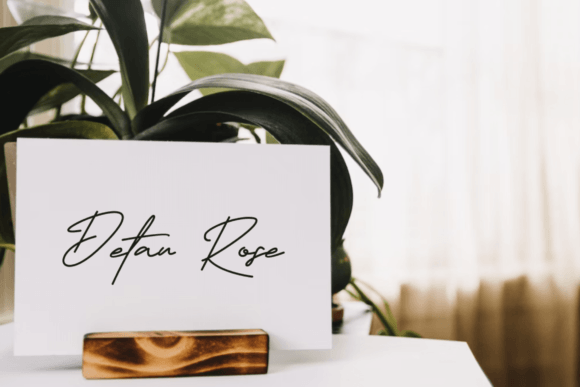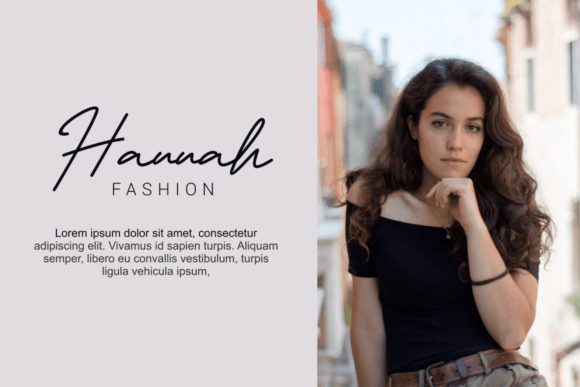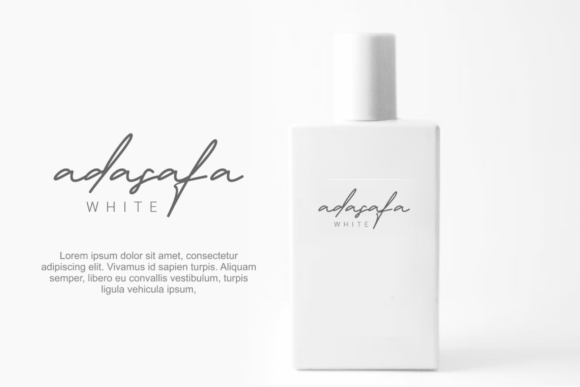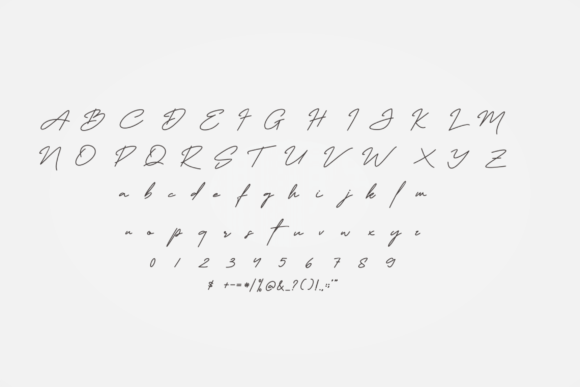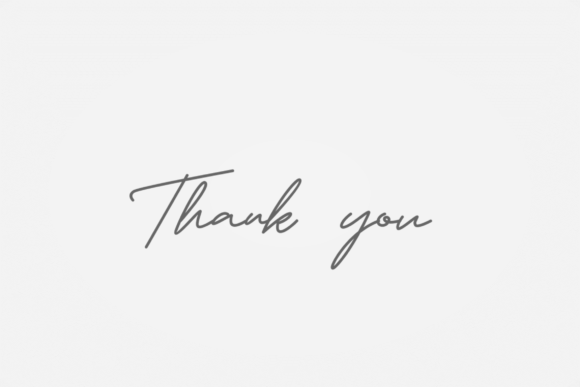
Bunibile Hasad Font
About Bunibile Hasad Font
Bunibile Hasad is a thin and authentic script font. The font is suitable for any branding project like logo, t-shirt printing, esports, and many more. It will look outstanding in a wide range of contexts.